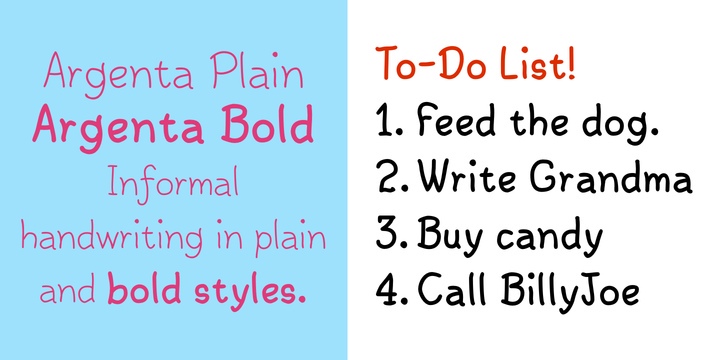
Argenta Font
Argenta Font is perfect for luxury branding, high-end fashion magazines, elegant wedding invitations, premium packaging design, jewelry catalogs, cosmetic product labels, upscale restaurant menus, and sophisticated marketing materials where refinement and class are paramount.
What makes Argenta Font so exciting is its exquisite blend of classical elegance and contemporary sophistication that instantly elevates any design project. The graceful curves and refined letterforms create an atmosphere of luxury and prestige that resonates with discerning audiences.
The Argenta Font family includes light, regular, medium, bold, and extra bold weights, complemented by elegant italic versions that add flowing movement and emphasis to your typographic compositions.
This distinguished typeface captures the essence of premium design, combining traditional craftsmanship with modern sensibilities. The Argenta Font Free Download provides access to a typeface that embodies exclusivity and refinement in every character.
The font's sophisticated character set includes stylistic alternates and ligatures that enhance the overall visual appeal and provide designers with creative flexibility. Each letterform has been carefully balanced to ensure harmonious text flow and exceptional readability across all applications.
Argenta Font excels in creating memorable brand experiences that communicate quality and attention to detail. The typeface's versatile nature allows it to perform beautifully in both headline applications and extended text settings while maintaining its luxurious character.
From corporate identity systems to editorial design, this font brings an air of sophistication that distinguishes premium brands from their competitors. The careful attention to typographic details ensures consistent performance across digital platforms and traditional print media.